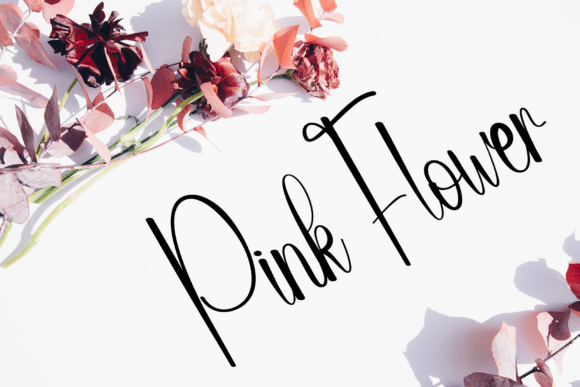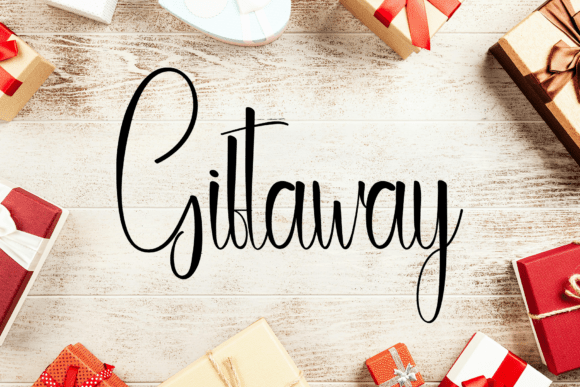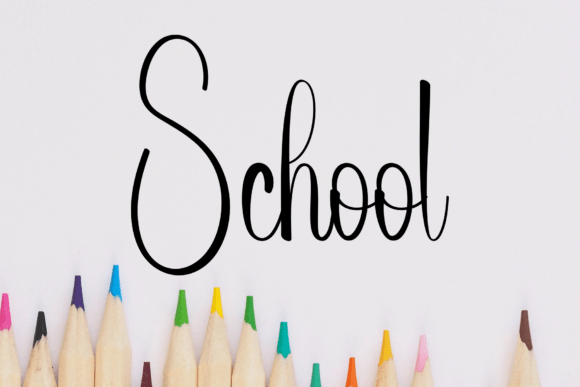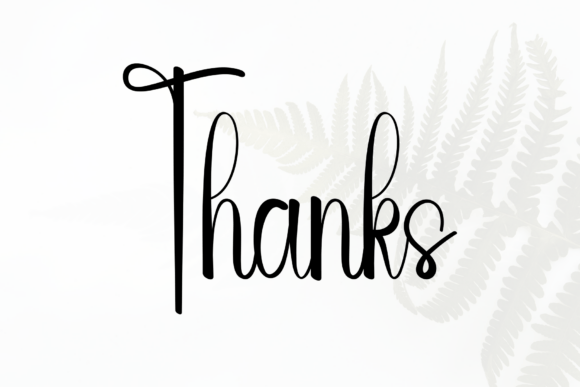
The Casterly Font: A Sweet and Beautiful Handwritten Delight
I’ll never forget the moment I stumbled upon the Casterly font. I was working on a design project for a cozy little café, trying to find the perfect font to capture their warm and inviting atmosphere. As I scrolled through my font library, Casterly caught my eye with its dancing characters and sweet, handwritten charm. It was love at first sight! 💕
In this article, I’ll share my experience with the Casterly font, its features, and how to make the most of it in your design projects. Whether you’re a designer, crafter, or creative hobbyist, you’ll learn how to add a touch of coziness to your work with this beautiful font.
An Honest Review of Casterly Font
What I Love About Casterly ✨
• 💫 The characters dance along the baseline, giving it a playful and whimsical feel.
• ✅ The font is highly legible, making it perfect for body text and captions.
• 🎨 The sweet and beautiful handwritten style adds a touch of warmth to any design project.
• 📚 Casterly comes with a range of OpenType features, including glyphs and stylistic alternates.
While Casterly is an amazing font, there are a few things to keep in mind:
• ⚠️ Some characters may not work well in all contexts, such as all-caps headings or very small text.
• 🤔 The font’s playful nature may not be suitable for very formal or corporate designs.
If you love Casterly, you might also enjoy these similar fonts:
• Lobster: A elegant and refined script font with a similar feel to Casterly. Use it for more formal designs or headings.
• Pacifico: A beautiful and modern script font with a relaxed, beachy vibe. Use it for designs that need a bit of a laid-back feel.
• Great Vibes: A fun and energetic script font with a similar playful feel to Casterly. Use it for designs that need a bit of personality.
• Alex Brush: A sweet and elegant handwritten font with a similar charm to Casterly. Use it for designs that need a touch of sophistication.
The Story Behind Casterly Font
Casterly was designed by a talented type designer who wanted to create a font that captured the warmth and coziness of handwritten letters. Inspired by the rolling hills and quaint villages of the English countryside, Casterly is a font that’s perfect for designs that need a touch of personality and charm.
Q: Is Casterly a versatile font?
A: Yes, Casterly is a highly versatile font that can be used for a wide range of designs, from headings and titles to body text and captions.